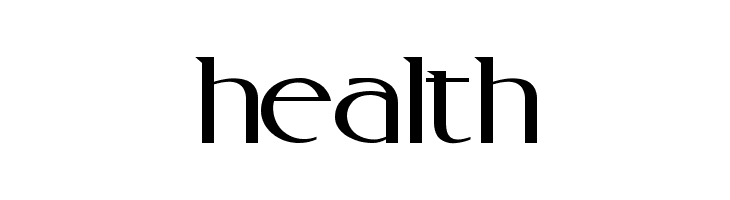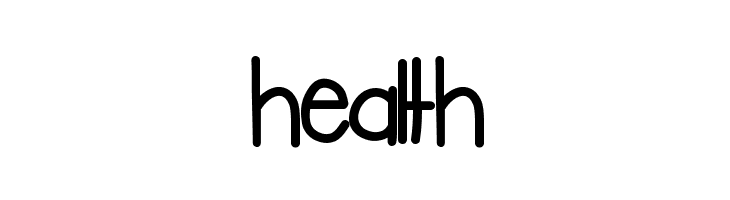
( Fonts by Jay Batchelor )
A modern, artistic font with sharp angles and smooth curves.
A bold, geometric outline font with modern appeal and high legibility.
A bold, geometric font with a modern and robust design.
( Fonts by Font Environment - fontenvironment.com )
A whimsical set of cartoonish car illustrations with a playful, hand-drawn style.
( Fonts by www.kimberlygeswein.com - Kimberly Geswein )
A playful, rounded handwritten font perfect for child-friendly designs.
A playful, handwritten-style font with a childlike, informal appearance.
A playful, handwritten font with a chalkboard style.